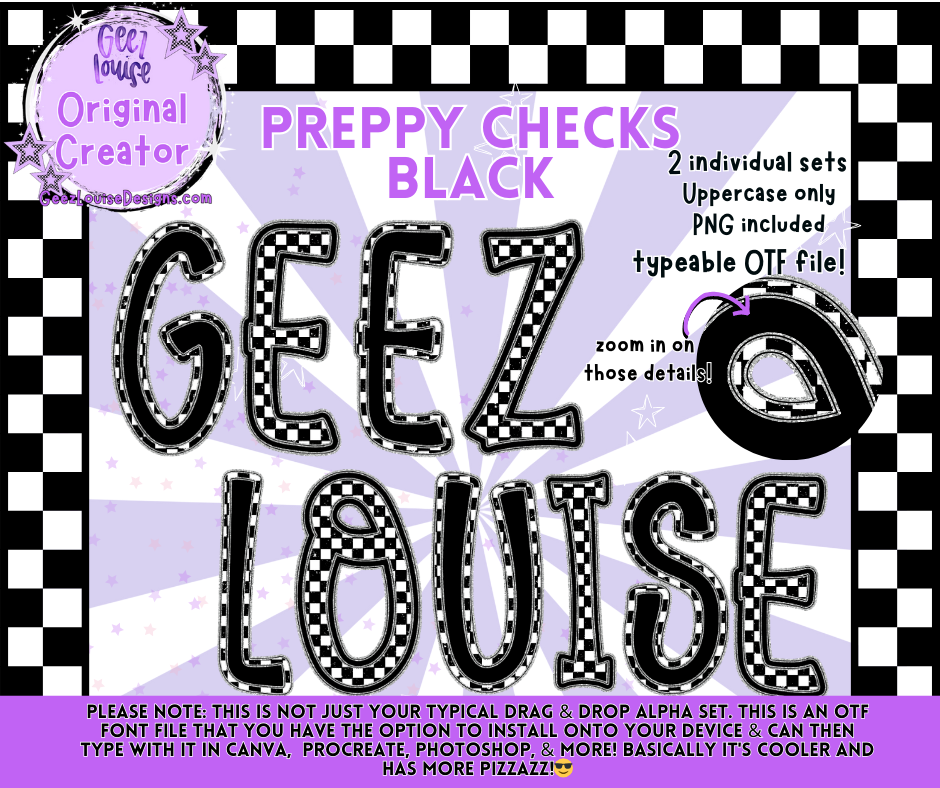
🖤 Add bold and preppy vibes to your projects with the Preppy Checks Black Alpha Font! 🖤
This stylish set features black and white checkered patterns with fun preppy detailing, perfect for designs that need a trendy and eye-catching touch. Whether you’re making apparel, graphics, or decor, this font will stand out!
• Preppy check patterns give a trendy, classic-meets-modern look.